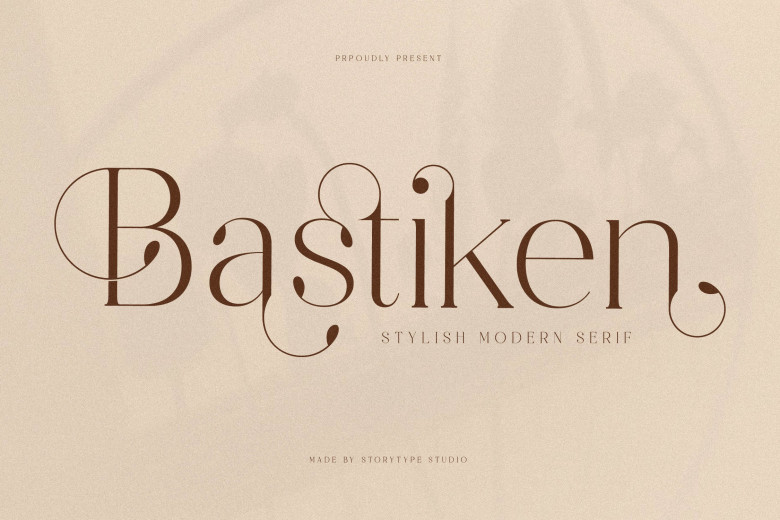
Bastiken Font
Bastiken  is a modern and stylish serif font that gives unique feeling. It is  perfect for elegant and luxurious logos, fashion brands, magazines, apparel, lettering, quotes and much more.
Bastiken Serif Typeface